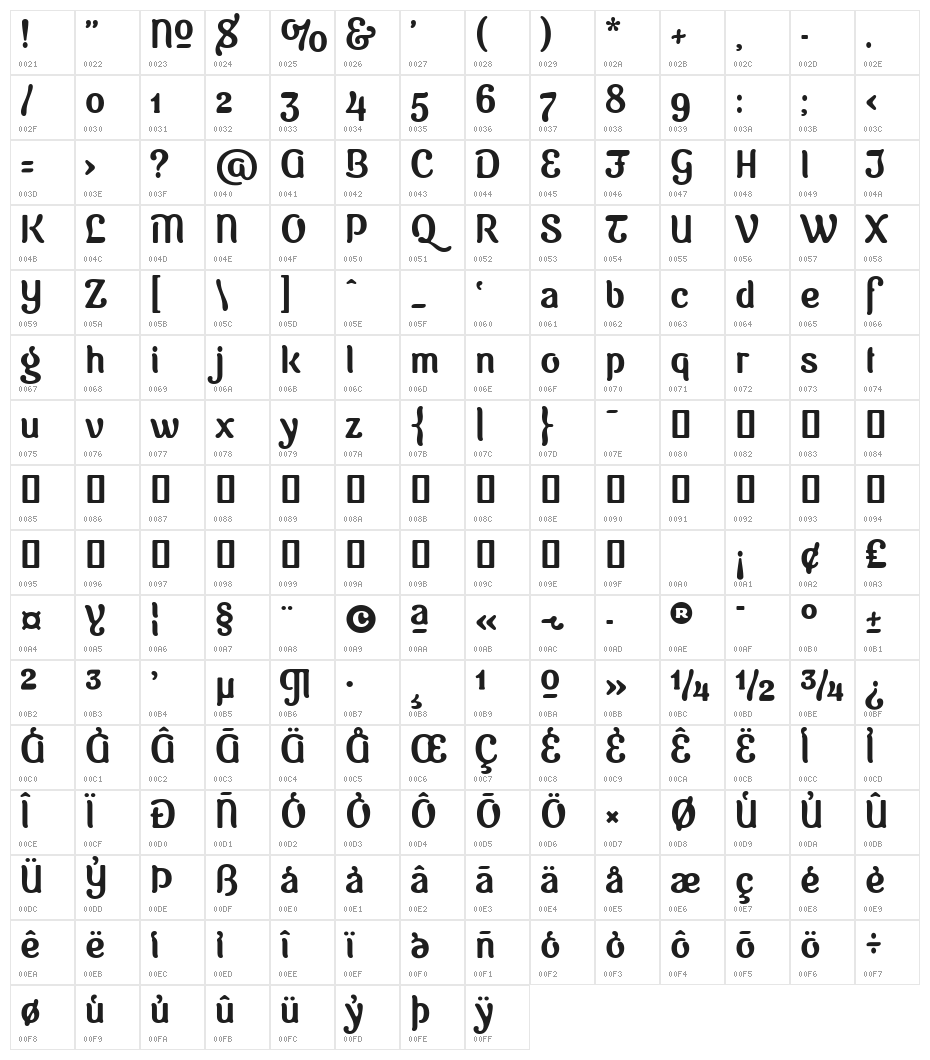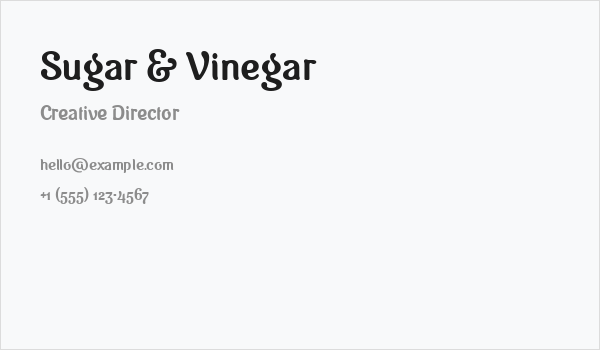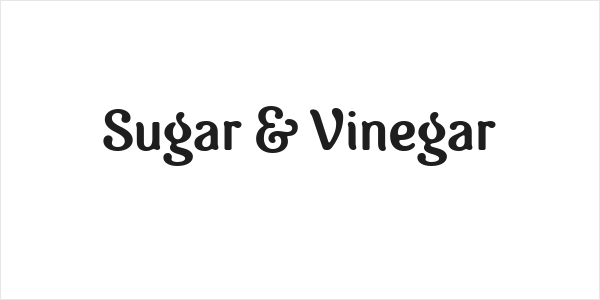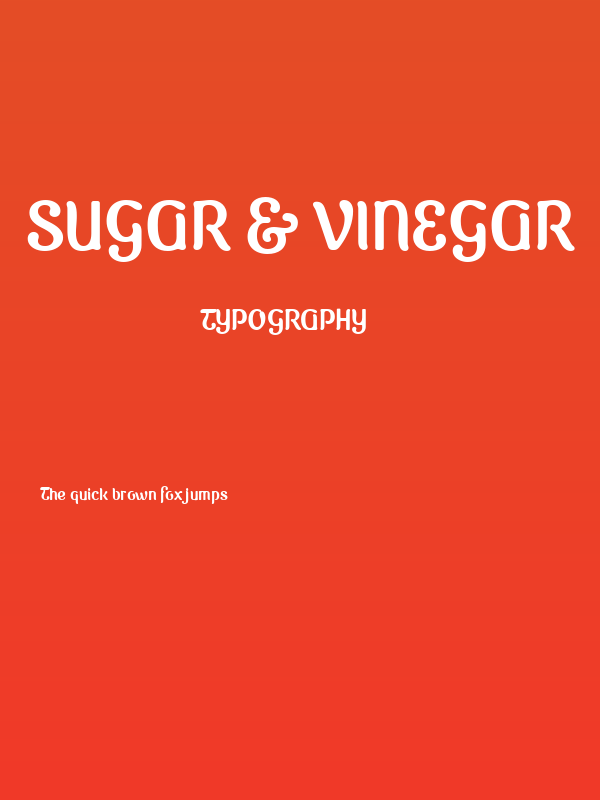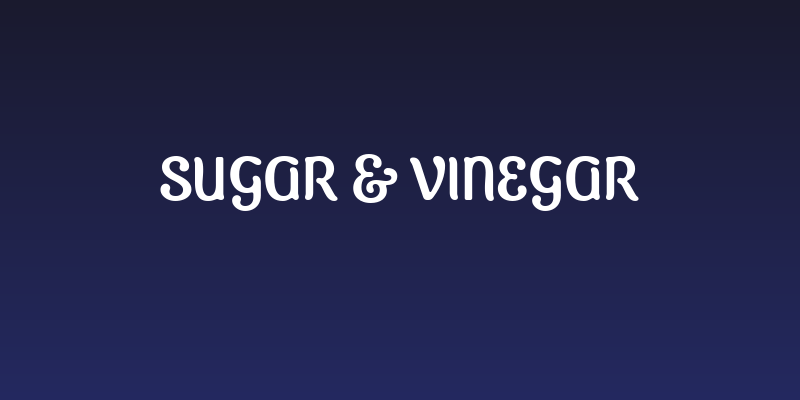
Sugar & Vinegar Font
Sugar & Vinegar Description
This font features a playful and bold design with a unique blend of rounded and slightly whimsical elements. The characters are thick and have a consistent weight, giving them a strong presence. The uppercase letters have a distinct curl at the end of some strokes, adding a touch of flair. The lowercase letters maintain a similar style, with rounded edges and a friendly appearance. Numbers are bold and easy to read, while special characters are designed to match the overall playful aesthetic. This font is perfect for projects that require a fun and engaging look.